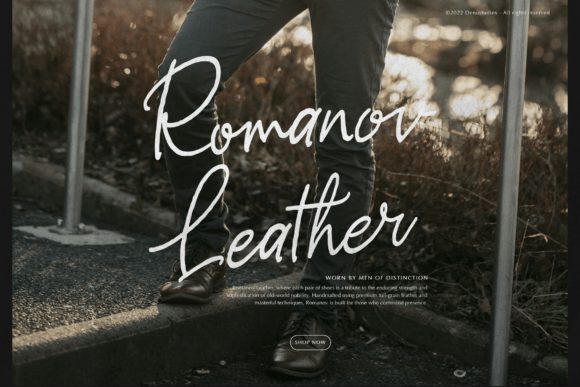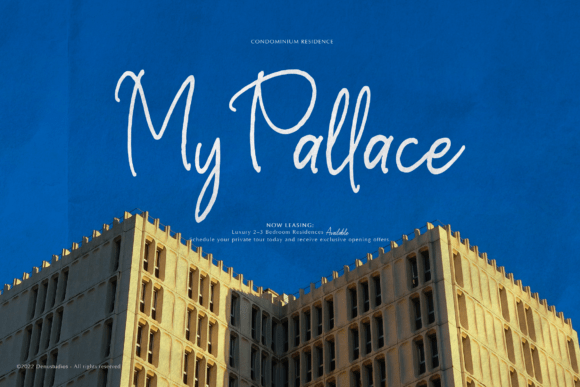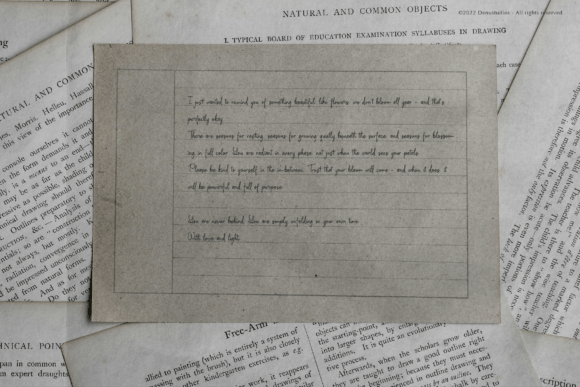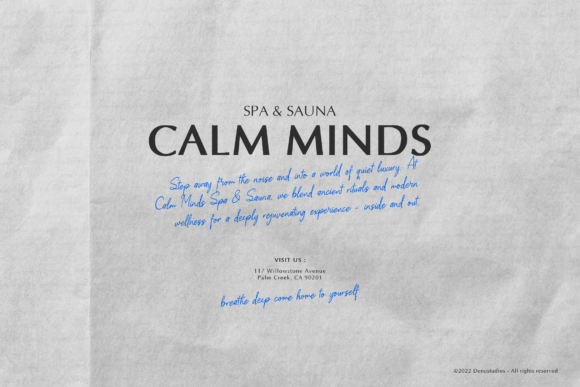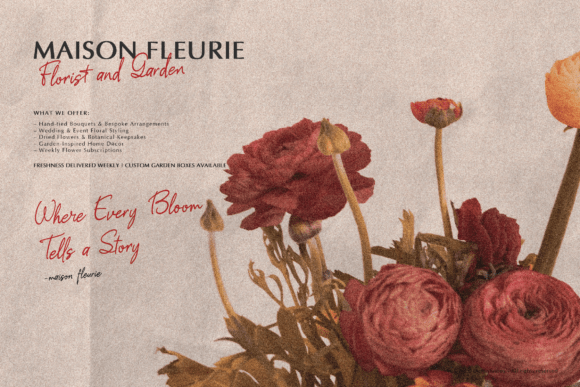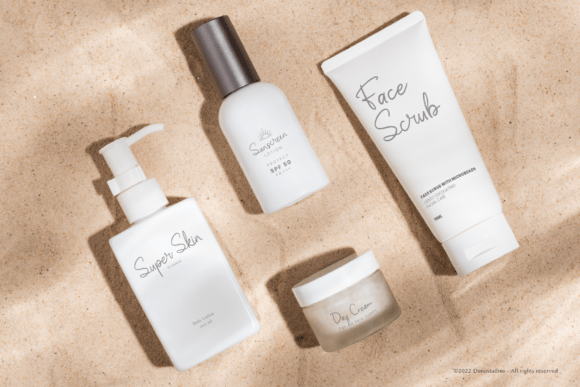
Introduction to Single Flower Font
For designers, finding the right font can be just as essential as a gentle brush stroke or a well-placed word. That’s why we’re excited to introduce you to the Single Flower Font – a delicate, handwritten script that’s sure to bring a touch of elegance and sophistication to any project.
With over 290 glyphs, ligatures, and multilingual support, the Single Flower Font is a high-quality design resource that’s perfect for free download and use in your next creative project. Whether you’re working on a wedding invitation, a journal, or a branding project that needs a soft, natural touch, this font is sure to bloom into something truly special.
Key Features of Single Flower Font
- Unique Hand-Drawn Design: The Single Flower Font features a delicate, hand-drawn design that adds a touch of elegance to any creative project.
- Perfect for Designers and Artists: This beautiful font is ideal for designers and artists working on creative projects, such as wedding invitations, greeting cards, and more.
Honest Review: Single Flower Font
I recently had the chance to use the Single Flower Font in a design project, and I must say it’s a beautiful addition to any creative project. ✨ The high-quality design and elegant style of the font make it perfect for projects that require a touch of sophistication.
- High-quality design and elegant style
- Perfect for creative projects that require a touch of sophistication
- The font may not be suitable for projects that require a bold or dramatic look
- The lack of bold weight options may limit its use in certain situations
Overall, I’m impressed with the Single Flower Font. While it may have some limitations, its beauty and elegance make it a valuable addition to any design resource library.
The Single Flower Font is a beautiful, high-quality design resource that can elevate any creative project. With its transparent background and intricate details, this font is perfect for adding a touch of elegance to your designs.
The Single Flower Font is perfect for:
- Birthday and holiday cards
- Gift tags and labels
- Custom artwork and illustrations